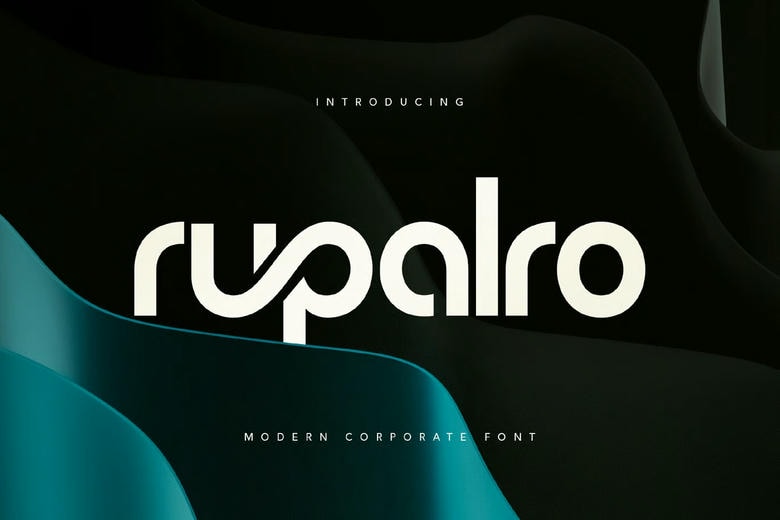
Rupalro Font
Rupalro is a bright and modern sans serif font that is corporate in nature. Its round curves and simple forms make it presented with a professional and self-confident appeal to each project. Rupalro is ideal to use in logos, presentations, websites, and innovative business requirements, which help your brand to be iconic and perfect.
Rupalro Modern Sans Serif Font